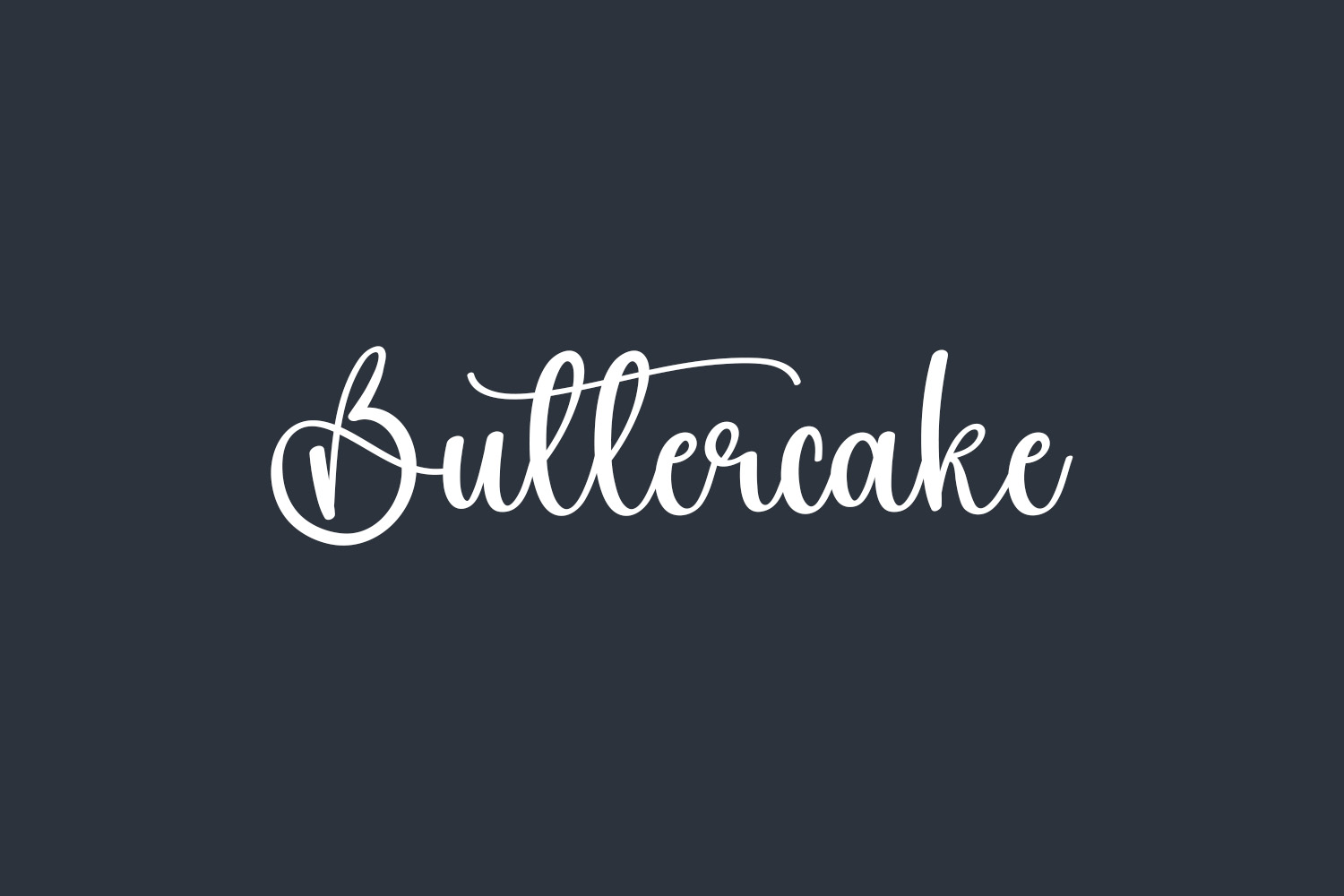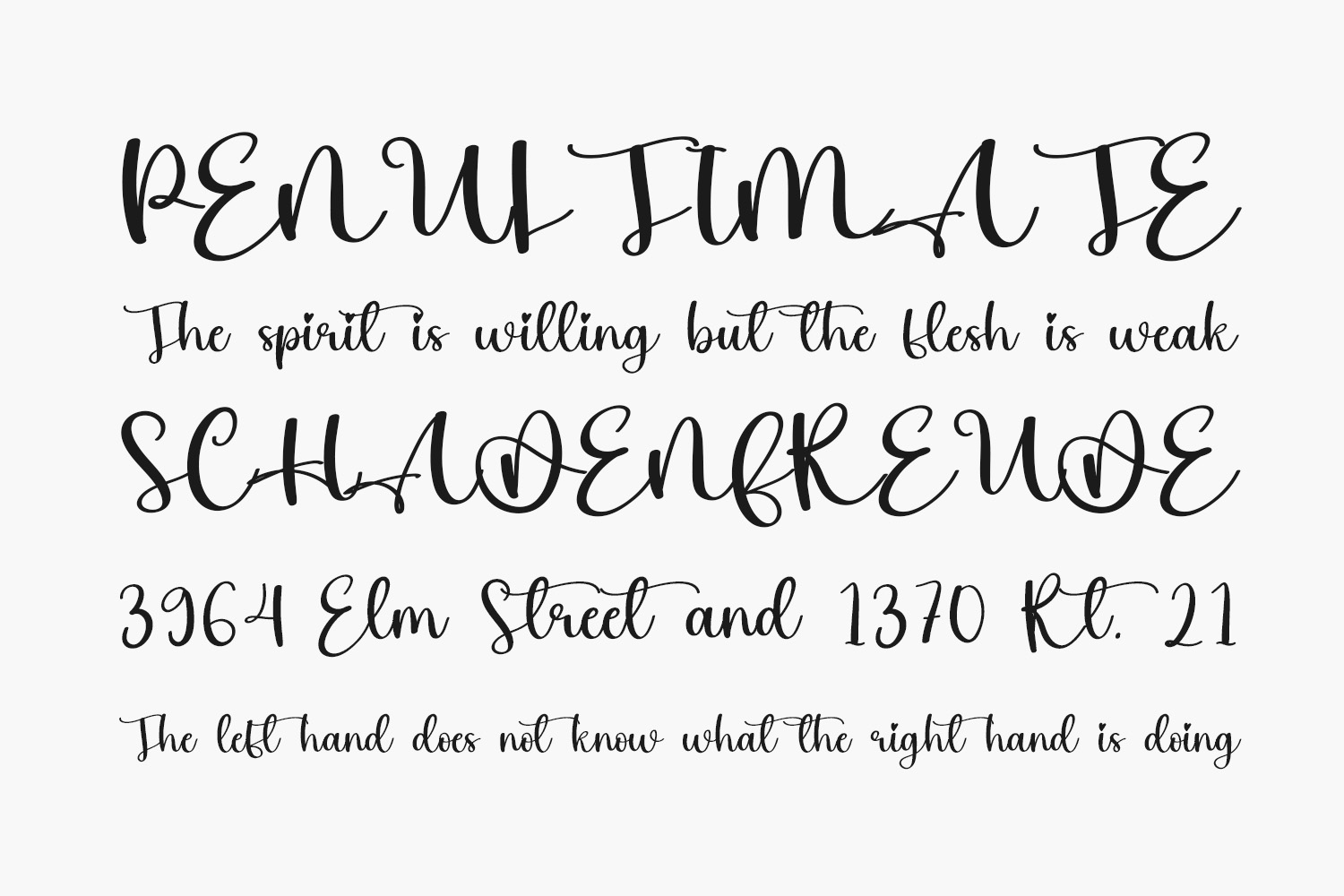
Buttercake Free Font stands as a fine example of a meticulously crafted handwritten font, destined to win hearts effortlessly. Balancing its refined calligraphic roots with a modern and invigorating touch, this font captures admiration. Let your affection for Buttercake blossom and witness your projects ascend to unparalleled heights of excellence. Buttercake Free Font is free for personal use only. Please purchase the full version for commercial use.